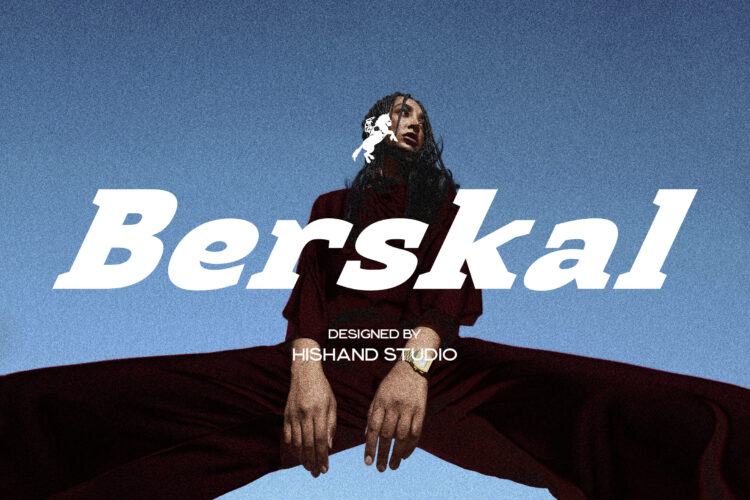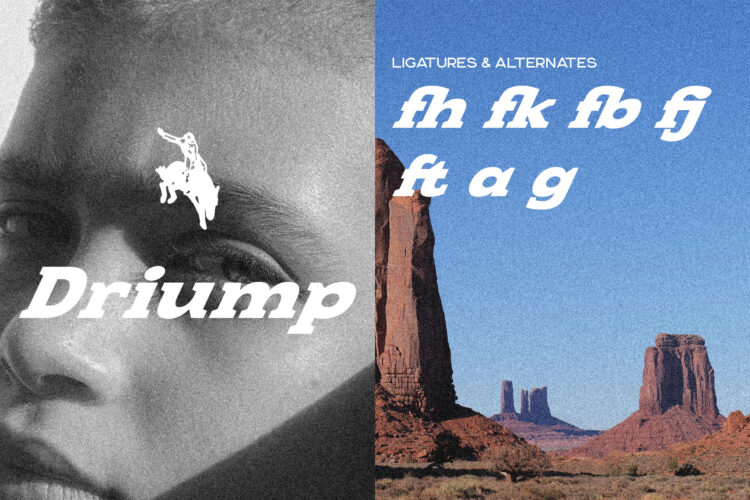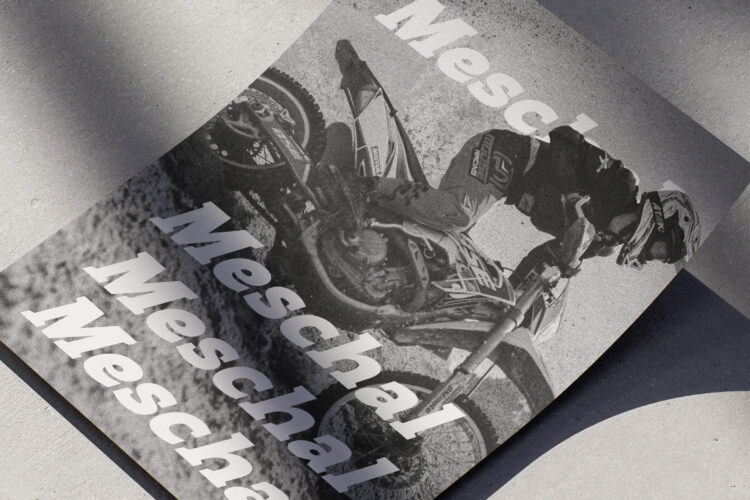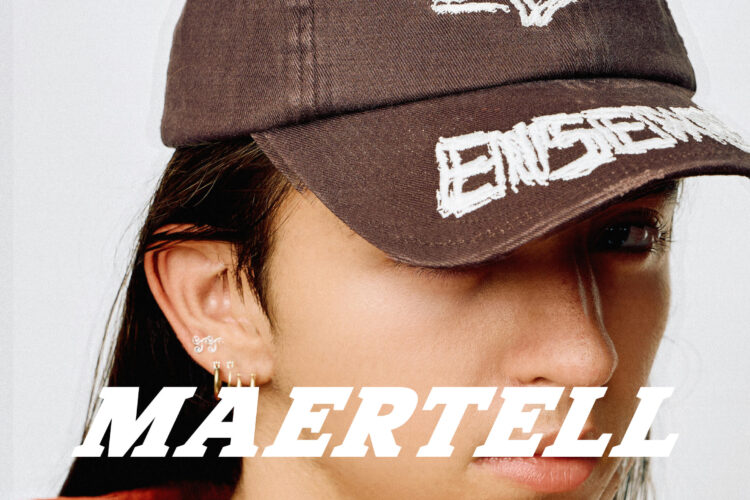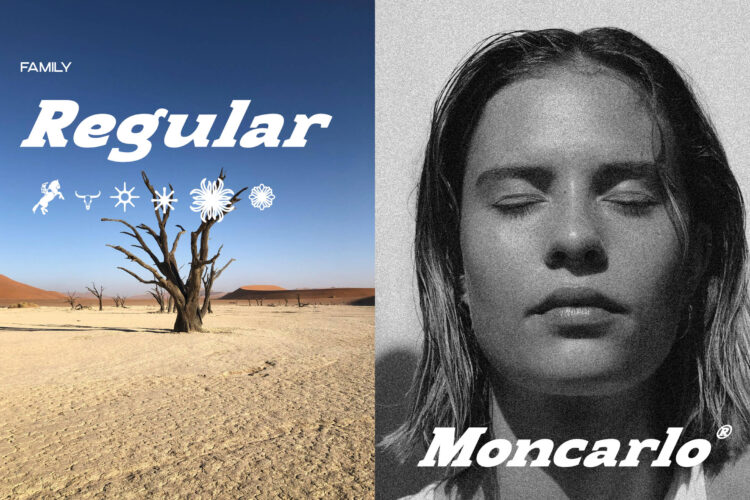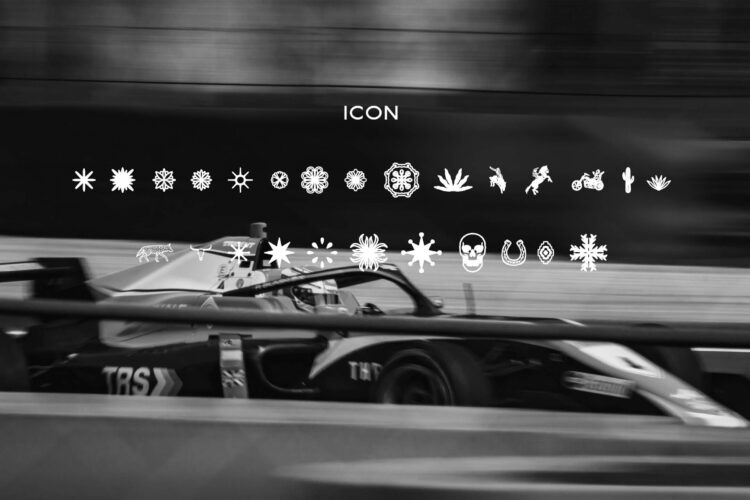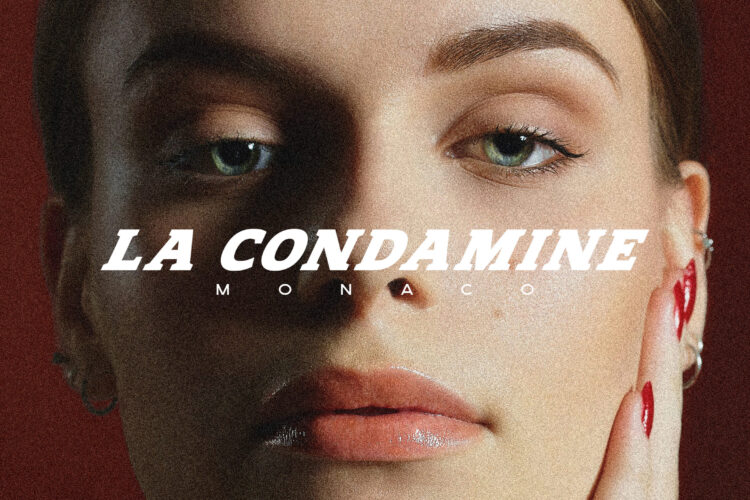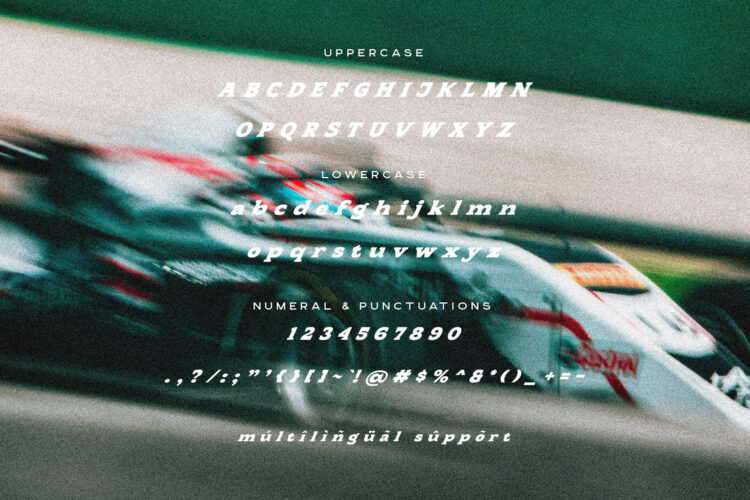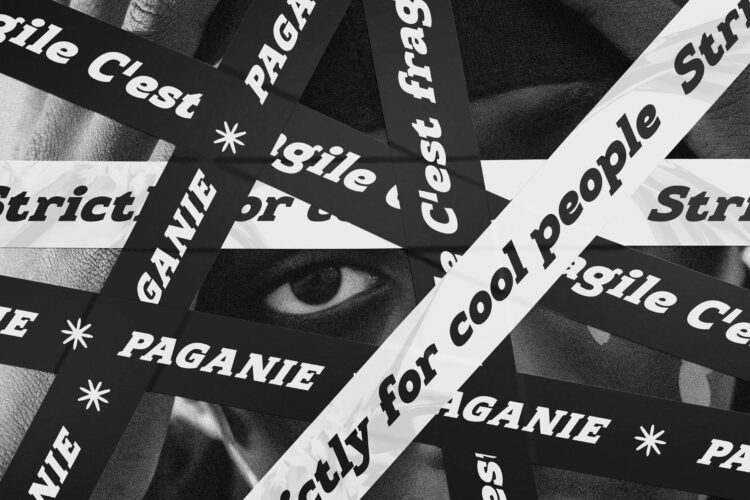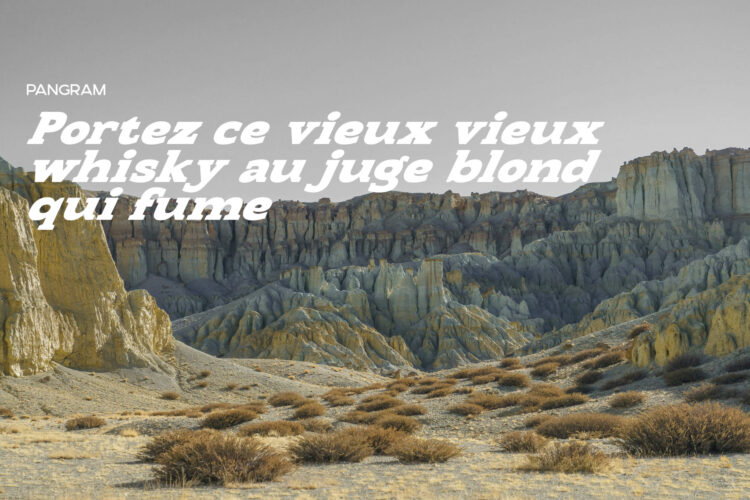
Berskal is a bold serif display font designed to deliver strength, character, and visual impact. Its powerful letterforms are built with confident proportions and distinctive angled details, creating a typeface that feels modern while remaining grounded in classic serif traditions. The subtle slant in the structure adds movement and energy, giving the font a dynamic presence that immediately draws attention.
The strokes are thick and carefully balanced, ensuring strong readability at large sizes. Each character is shaped to feel solid and intentional, allowing words to appear clear and commanding without becoming heavy or overwhelming. The serif details are sharp yet controlled, adding refinement while maintaining a bold attitude. This balance makes Berskal suitable for designs that need to stand out while still feeling polished and well crafted.
Berskal works especially well in fashion branding, editorial layouts, posters, and campaign visuals. Its expressive style complements photography and bold compositions, allowing typography to act as a central design element rather than a supporting detail. When paired with clean layouts and restrained color palettes, the font brings a sense of confidence and sophistication to the overall design.
The font is also well suited for logos, magazine covers, product branding, and statement headlines where clarity and presence are essential. Its strong shapes help create memorable wordmarks and titles that hold attention across both print and digital media. Berskal can be combined with minimalist sans serif fonts to create contrast and hierarchy, adding depth to modern design systems.
Overall, Berskal is a versatile display serif font that brings boldness and style to contemporary design work. It offers a refined yet expressive look that supports clear communication while adding a strong visual identity. Designed for impact, Berskal is an effective choice for projects that demand confidence, structure, and modern appeal.
Complete with
- ligatures
- alternates
- icon
- multilingual support